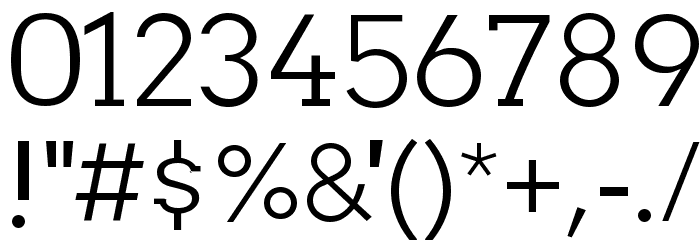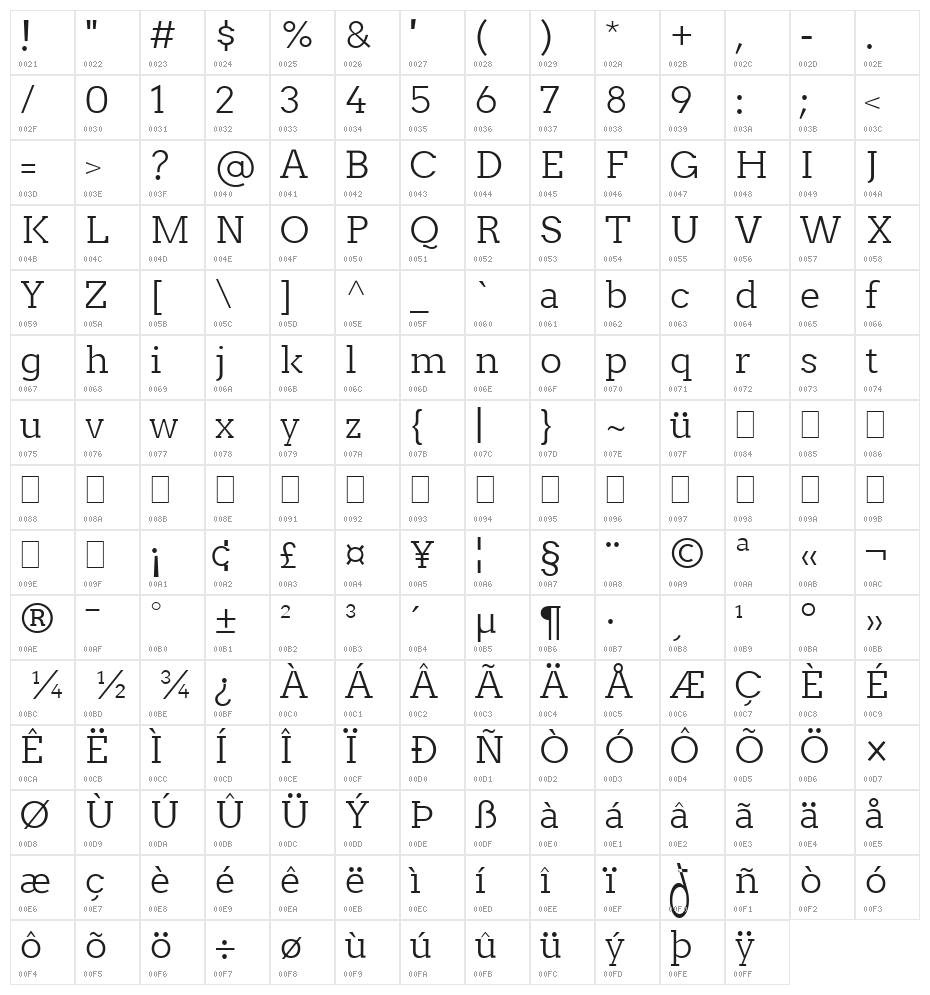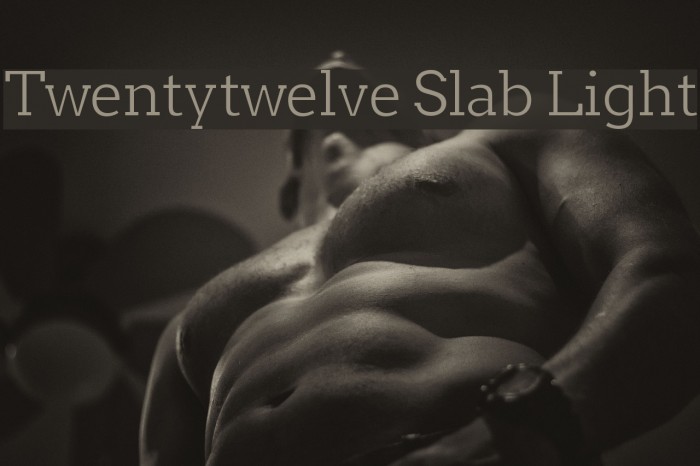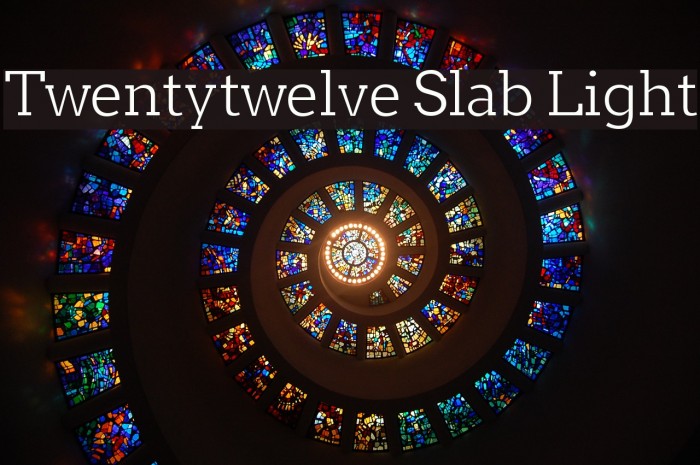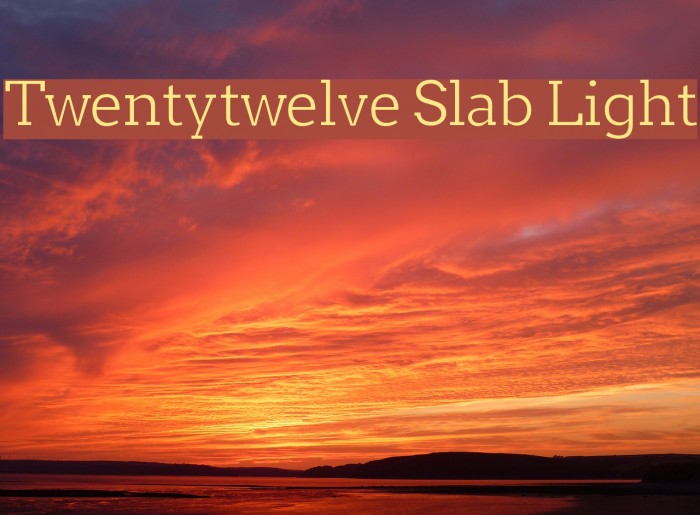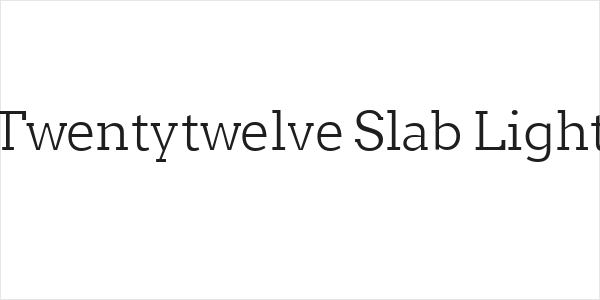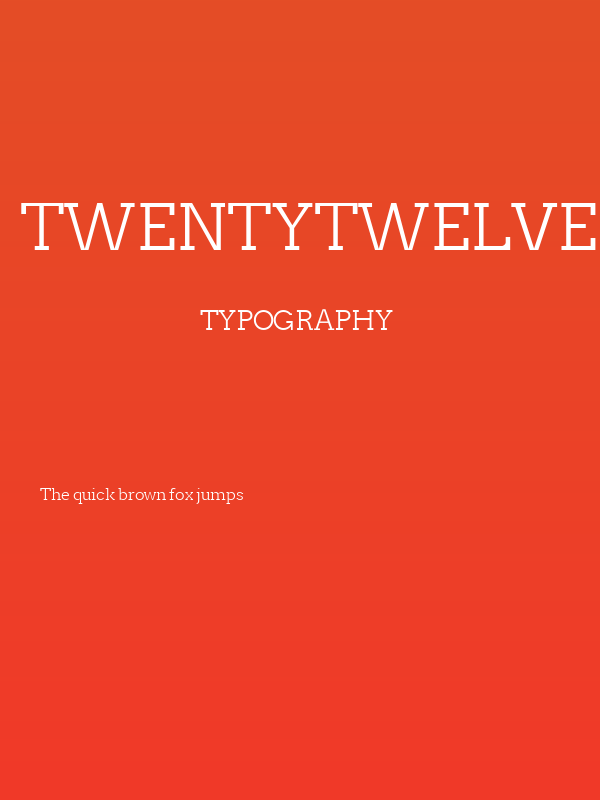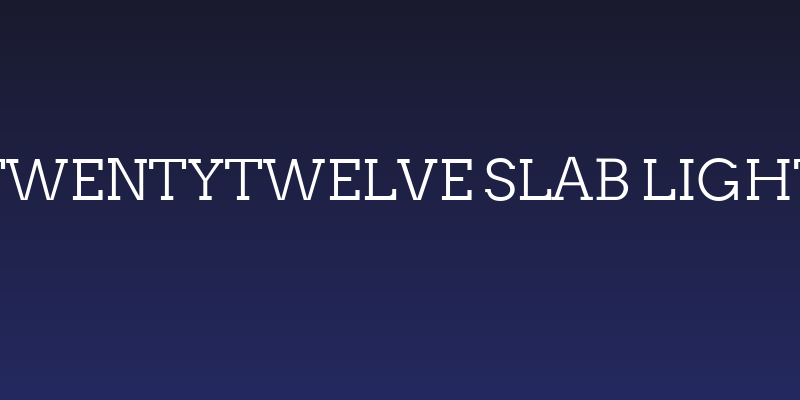
Twentytwelve Slab Light Font
Twentytwelve Slab Light Description
This font features a clean and modern slab serif design with a light weight, offering a refined and elegant appearance. The characters are well-proportioned with a consistent stroke width, providing a balanced and harmonious look. The uppercase letters are bold and authoritative, while the lowercase letters maintain a friendly and approachable feel. The numerals are clear and easy to read, making them suitable for various applications. The special characters are distinct and well-integrated into the overall design, ensuring versatility in usage. This font's style is both contemporary and timeless, making it suitable for a wide range of design projects.
| Proposed Projects | Ideal for branding, editorial design, websites, and print materials where a modern and sophisticated look is desired. |